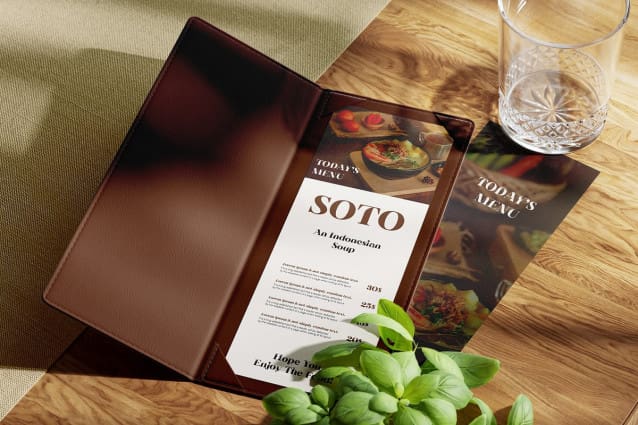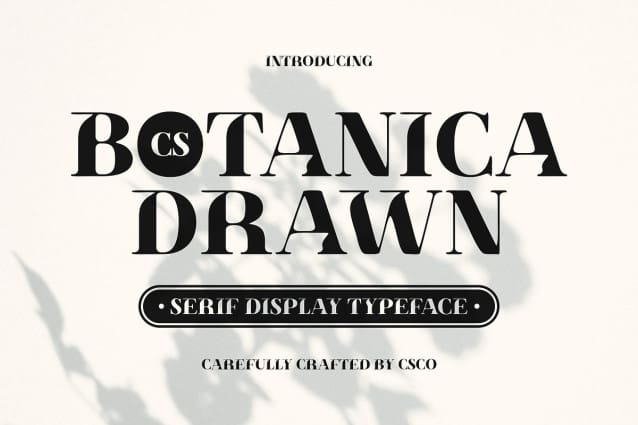
CS Botanica Drawn Font
CS Botanica Drawn Font. This is a modern Didone serif font that exemplifies sophistication with its sleek vertical lines and high contrast. This design creates a striking and luxurious appearance, ensuring that it commands attention in any setting. Its refined structure not only elevates the visual appeal but also communicates professionalism, making it an excellent choice for high-end branding and editorial projects.
Artistic Touch Layered with a drawn effect, this font adds an artistic and personal touch to each character, enhancing its overall warmth and inviting nature. This unique effect breathes life into the font, making it feel both approachable and distinguished. The hand-drawn quality introduces a sense of craftsmanship that resonates with audiences, ensuring that every design conveys care and creativity.
Versatile Applications Perfectly suited for branding, formal invitations, and editorial design, this drawn font shines in any application requiring a blend of elegance and modernity. Its smooth, sophisticated lines and subtle detailing create a captivating aesthetic, ideal for projects that aim to evoke a classy and refined atmosphere. Whether you’re crafting an upscale brand identity, designing a luxurious invitation, or creating compelling editorial layouts, this font will enhance your visual narrative.